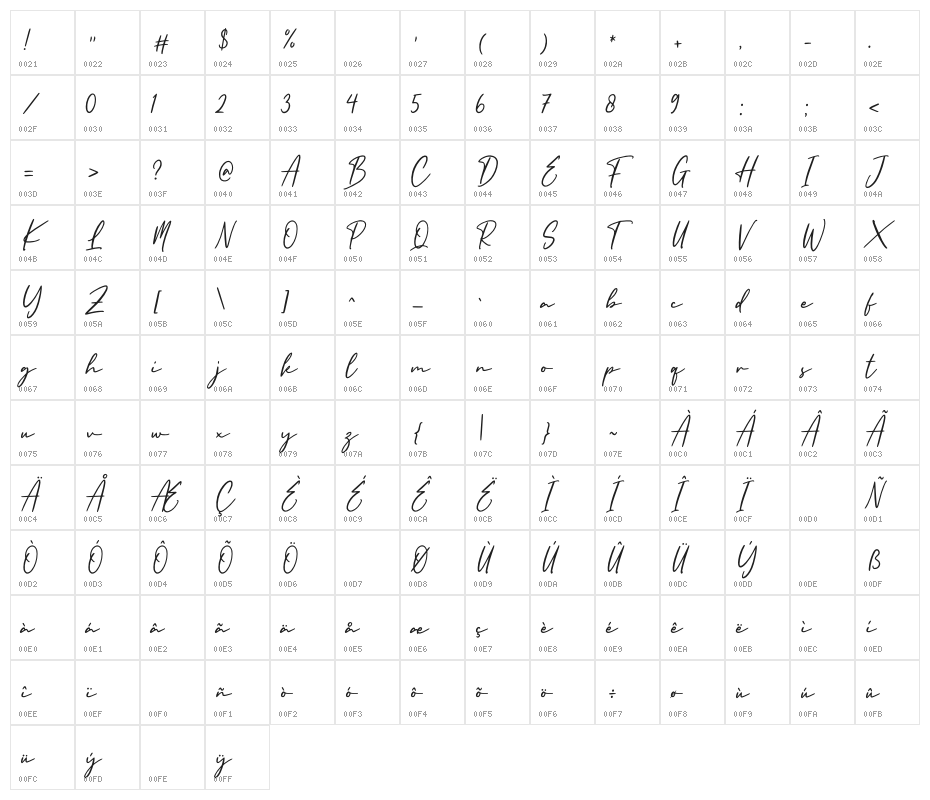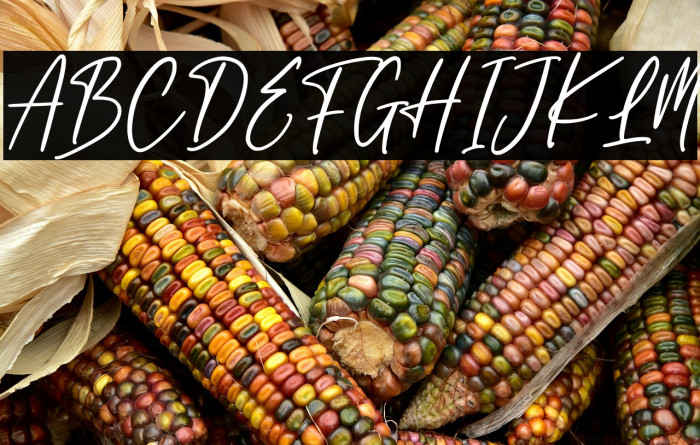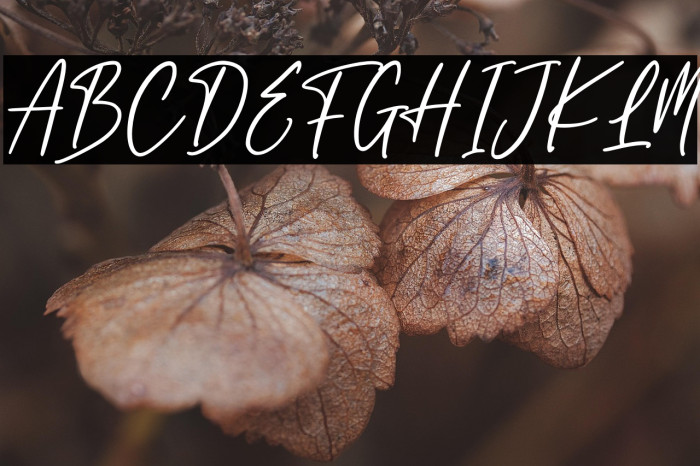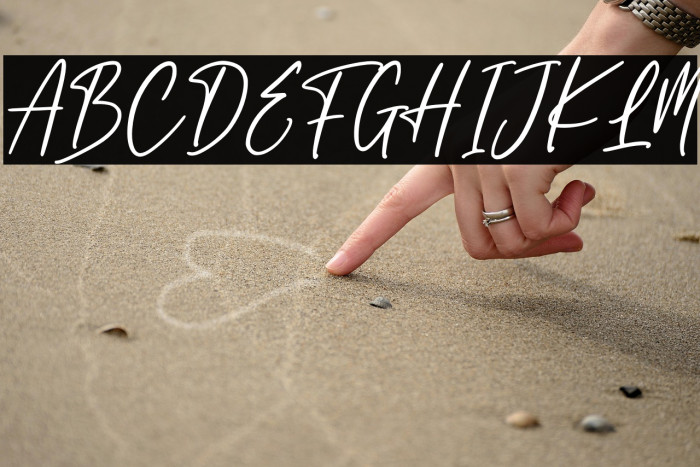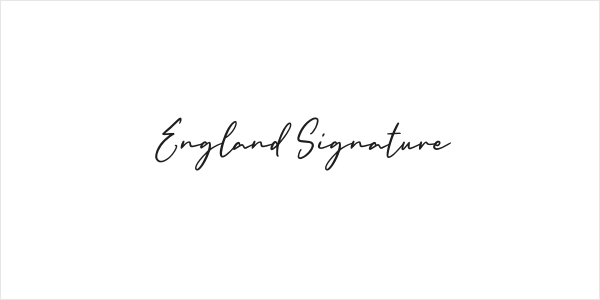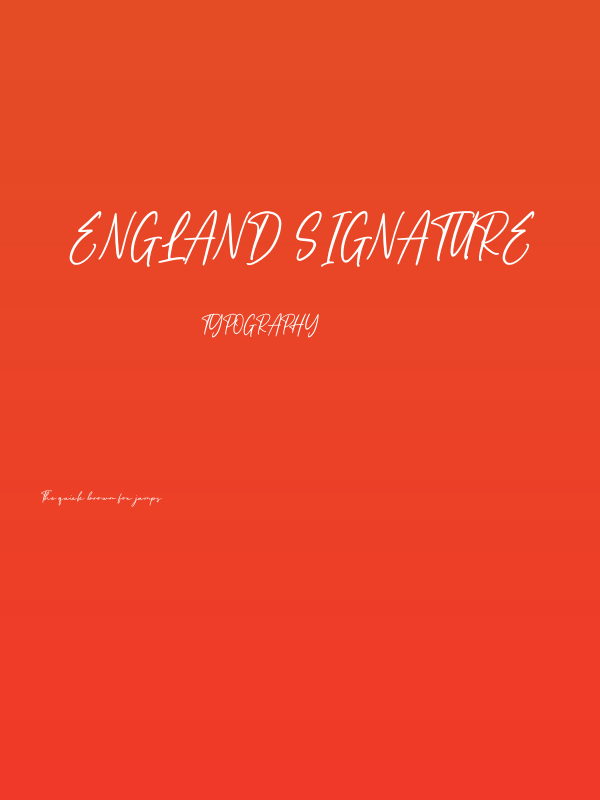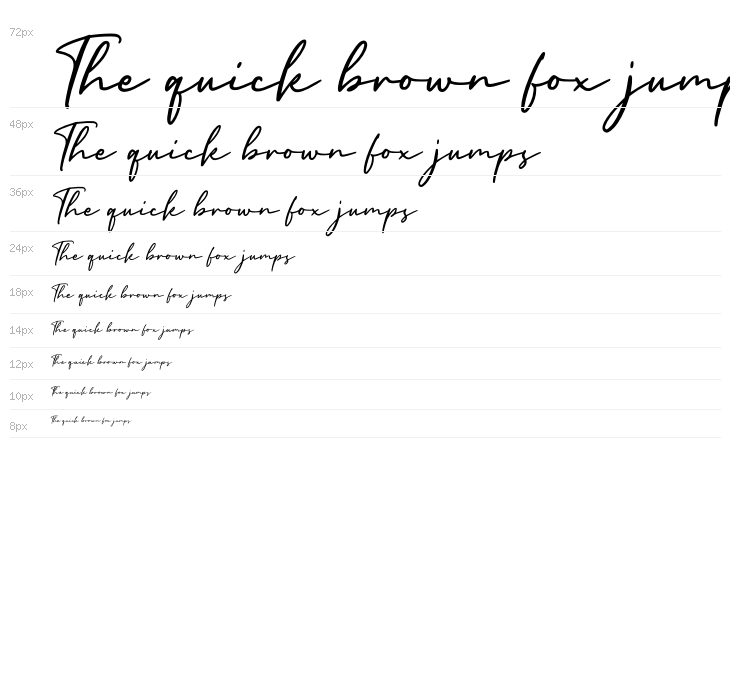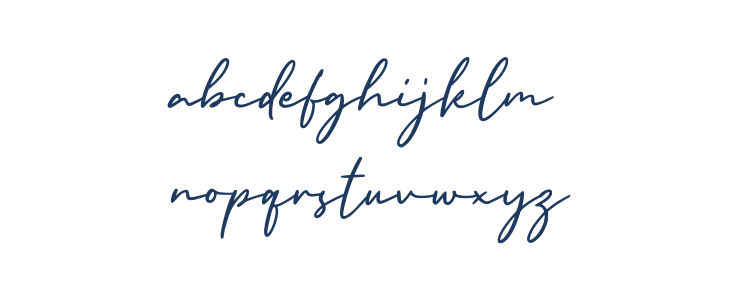
England Signature Font
England Signature Description
This font exudes a sophisticated and elegant style, characterized by its fluid, cursive script that mimics the natural flow of handwriting. The uppercase letters are tall and slightly slanted, giving a sense of movement and grace. The lowercase letters maintain a consistent style, with smooth curves and loops that enhance readability while preserving an artistic flair. The numerals are clear and distinct, complementing the overall aesthetic. Special characters are thoughtfully designed to match the script's elegance, making this font versatile for various applications.